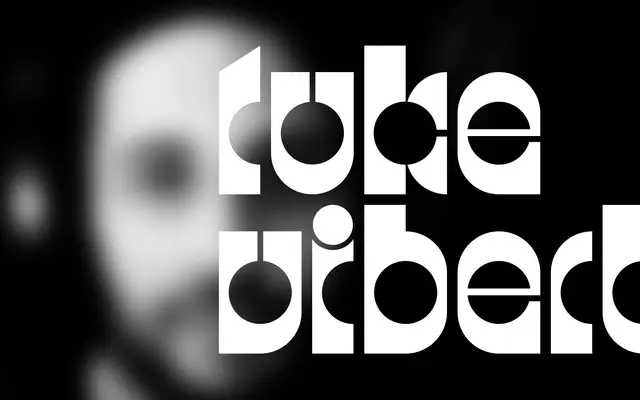
BD Fontabello
A single-weight revival of a 1973 Mecanorma display face, rediscovered on an Italian record sleeve and released in 2015 as a lowercase-only font.
Traced back to a font called Lucky from the Mecanorma catalogue, this typeface carries the rounded, warm character of early-1970s commercial lettering. It is lowercase only, a deliberate constraint that preserves the informal, label-ready feel of the source material. One weight, one style, suited to music, packaging and retro-flavoured editorial work.
A lowercase-only revival inspired by a 1973 Mecanorma lettering sheet, with the rounded, characterful forms typical of early-70s display lettering used in record sleeve design.